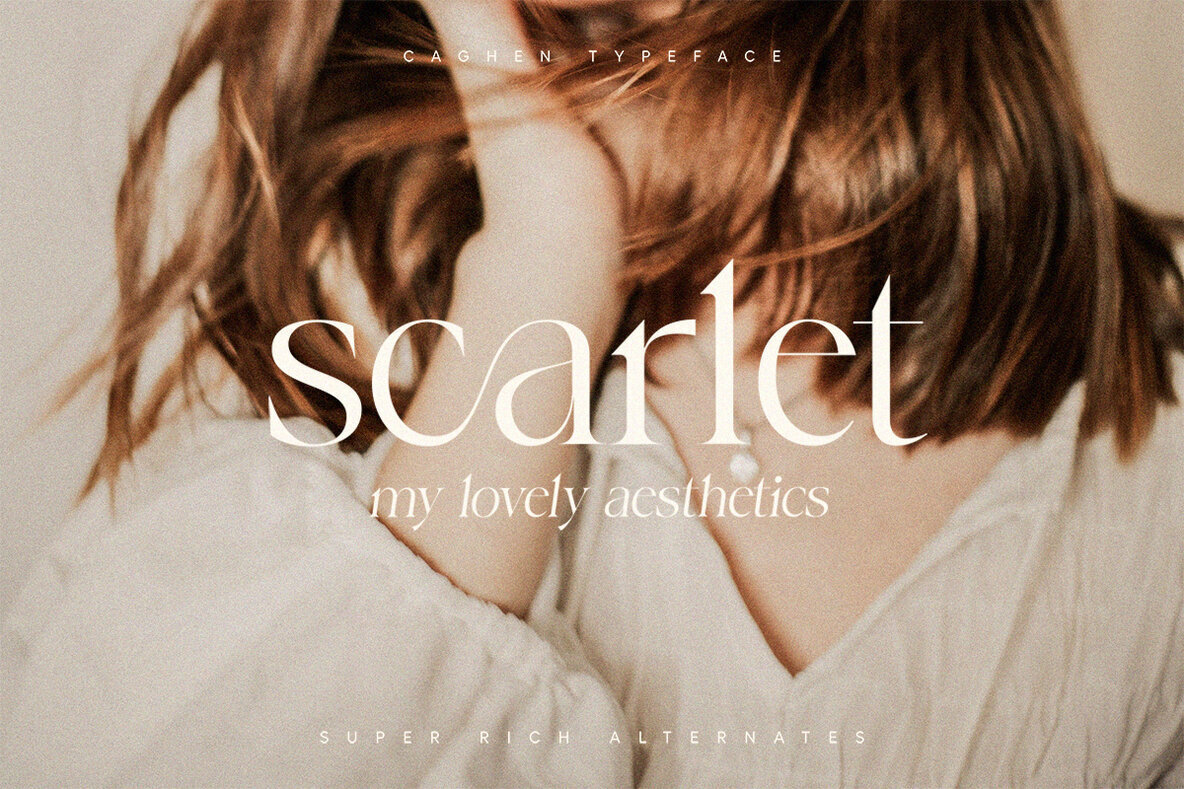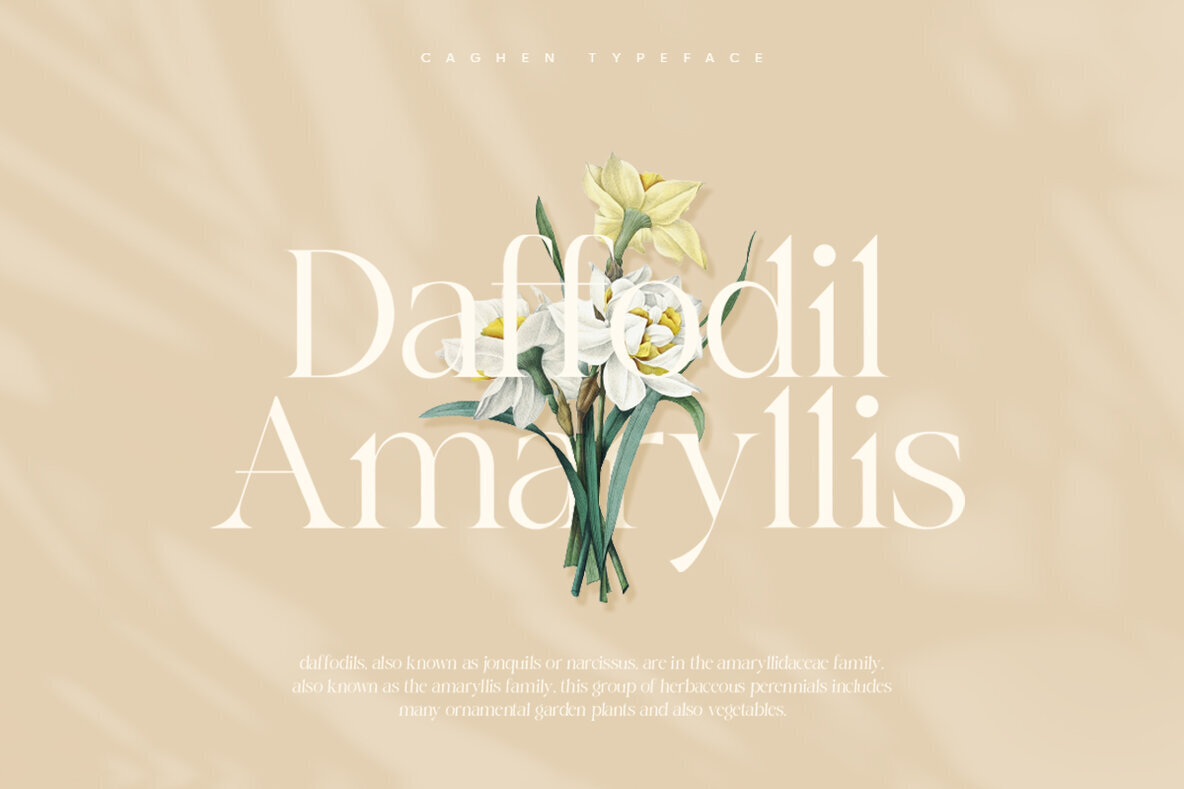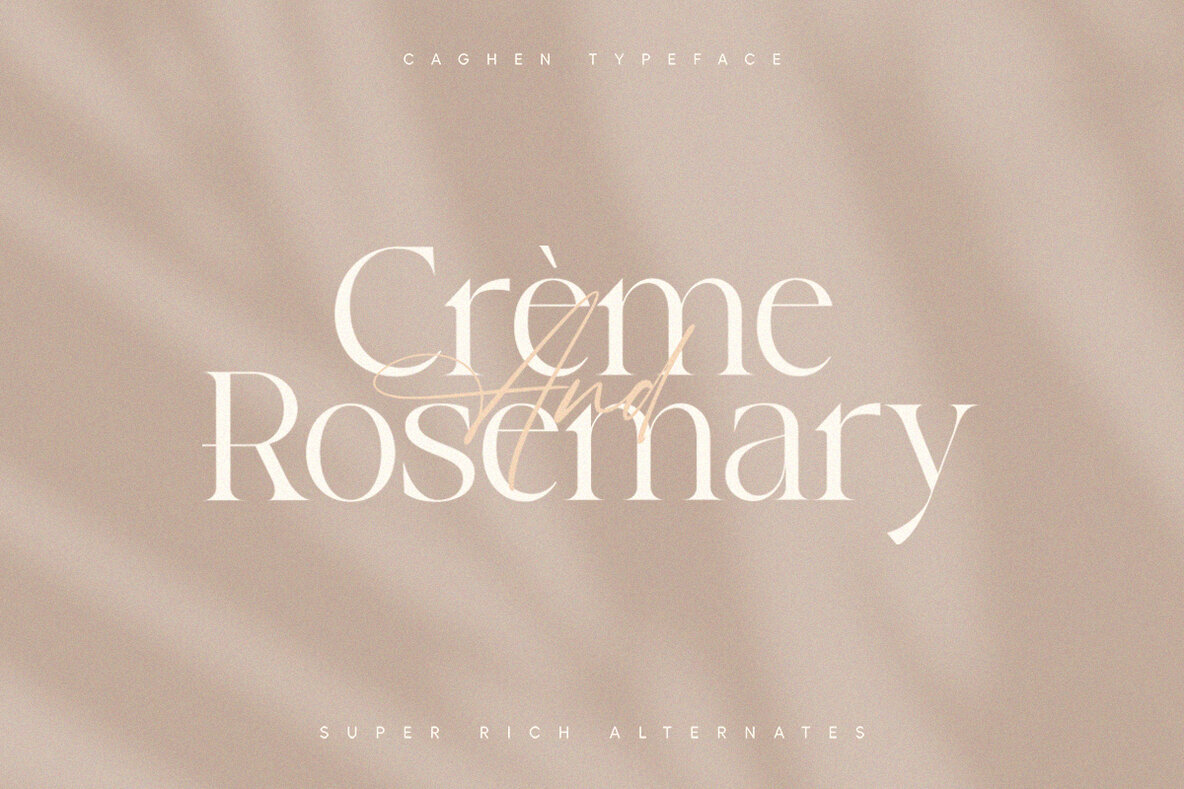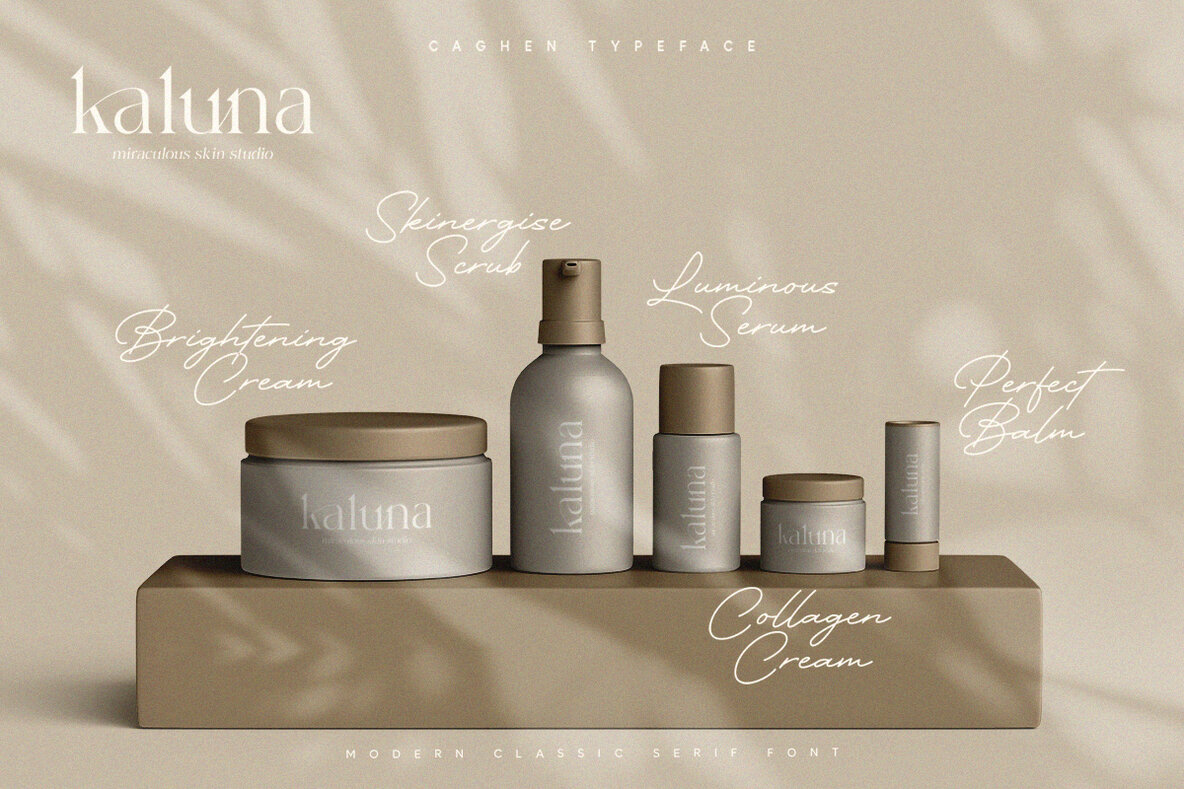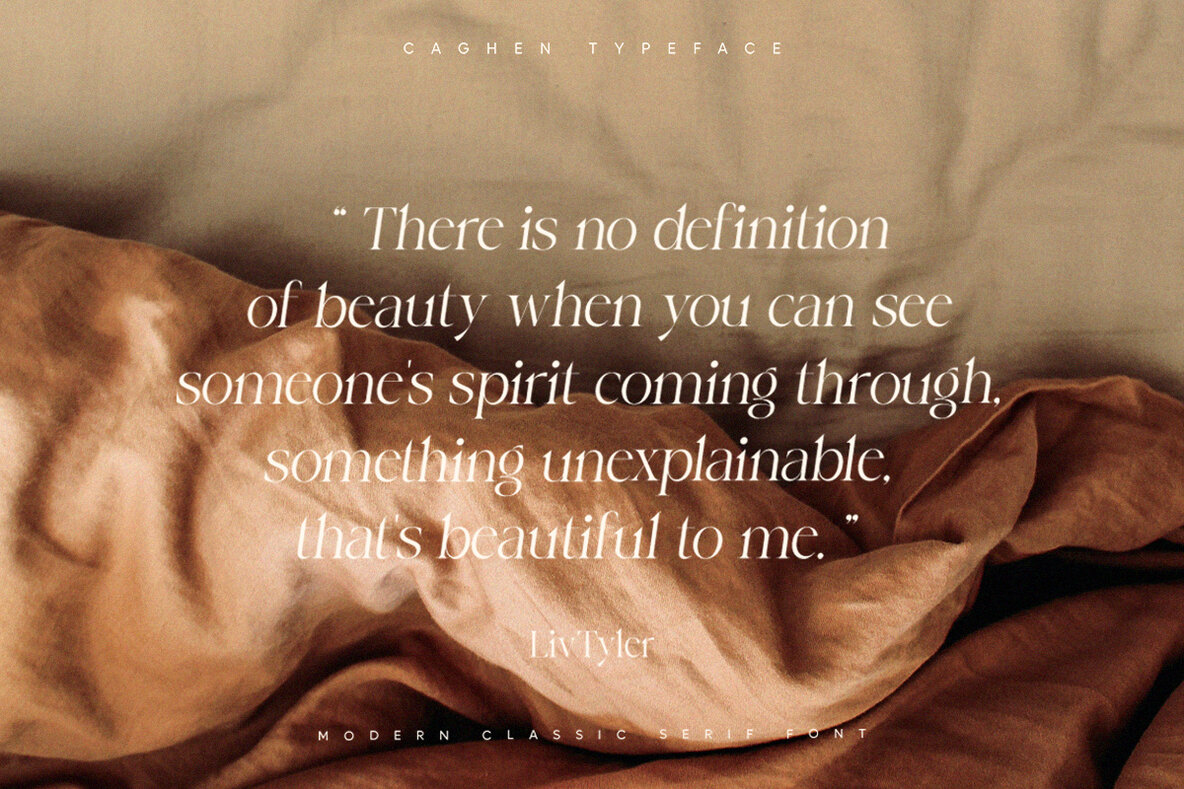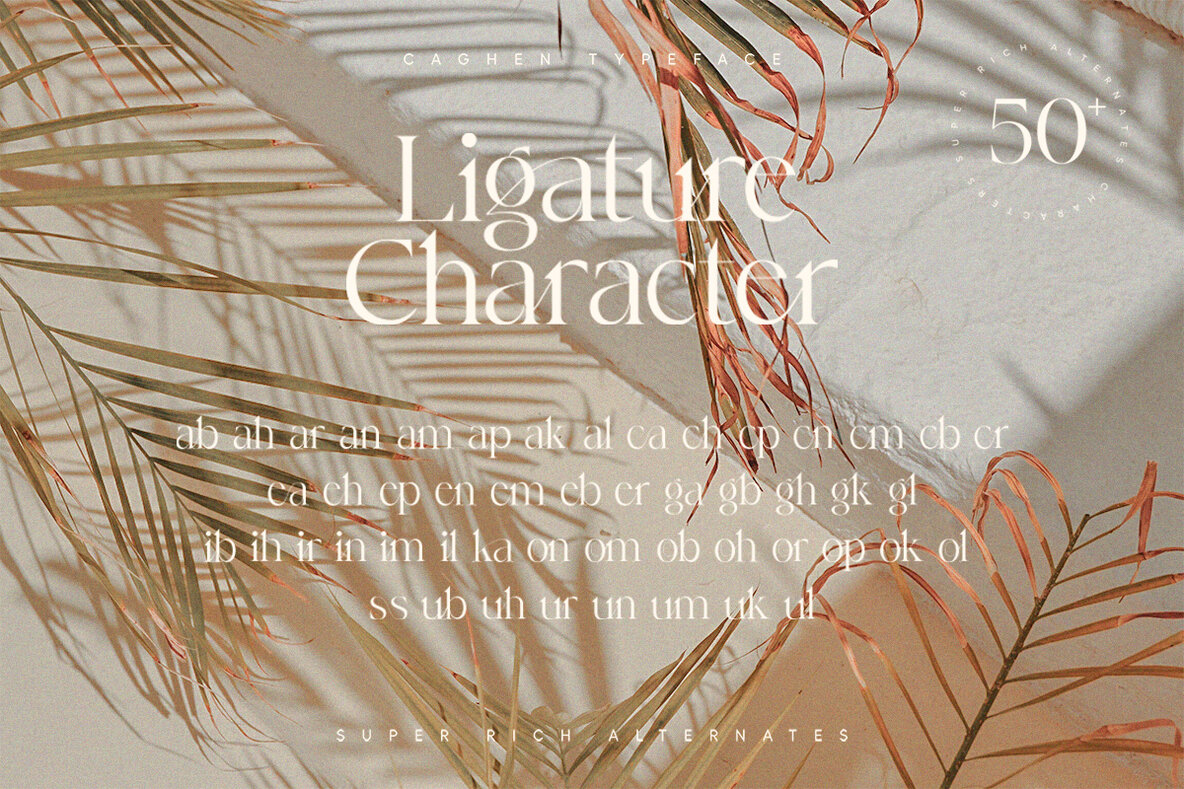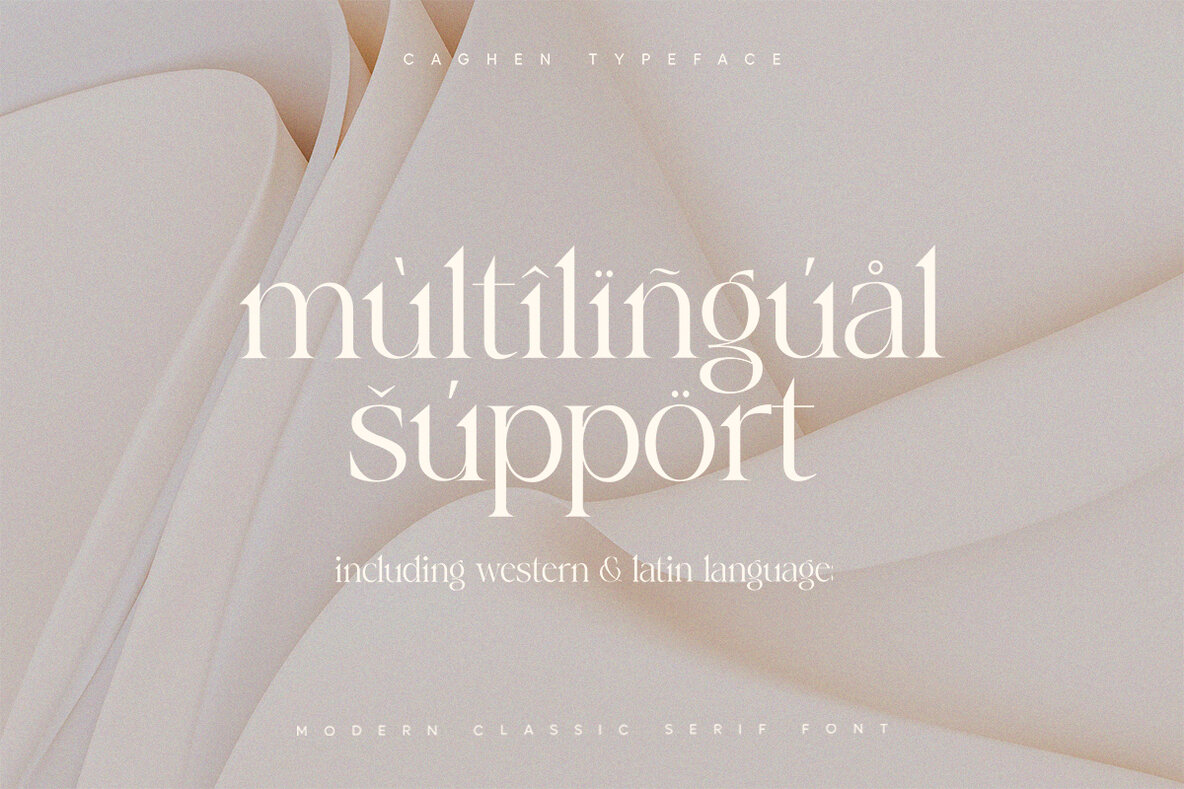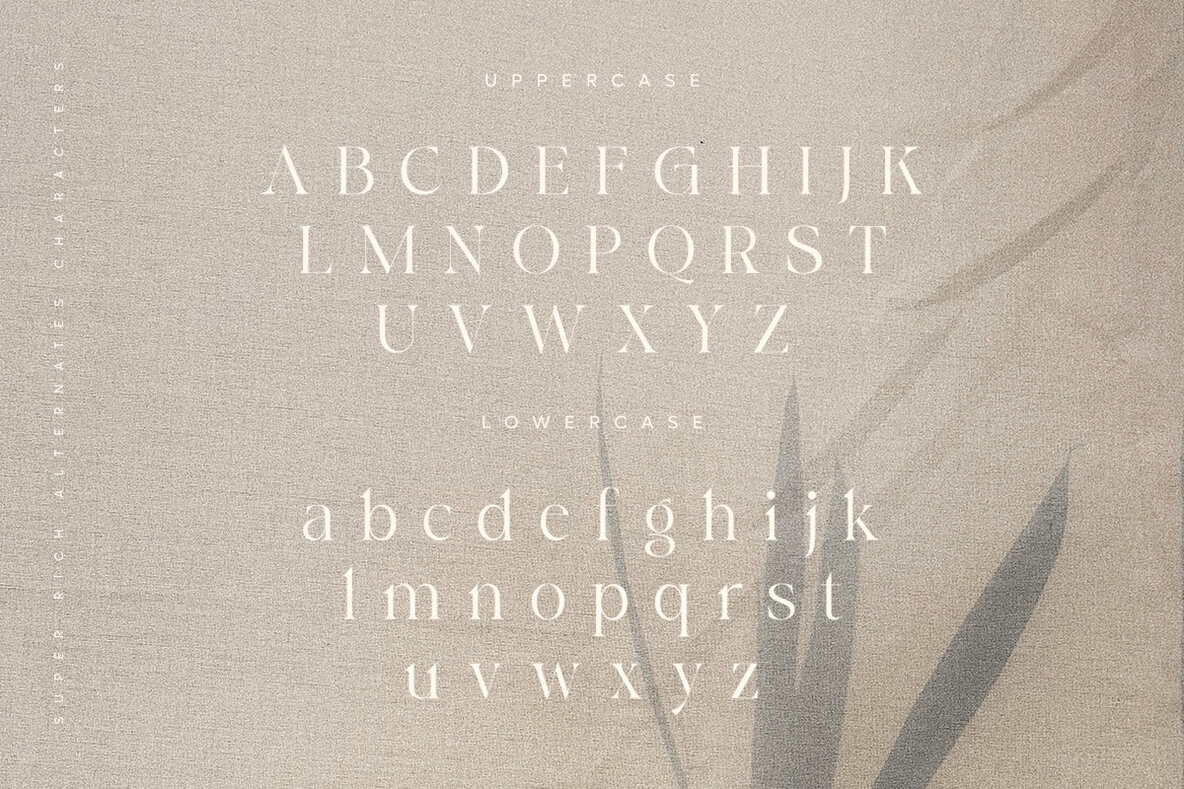
Caghen Font
Caghen
Caghen embodies the ideal blend of classic serif tradition and contemporary flair, offering designers a versatile tool for sophisticated layouts. The typeface draws inspiration from rich characters, aligning with a design ethos that marries timeless elegance to present-day aesthetics.Caghen: A Classic Serif With Modern Elegance